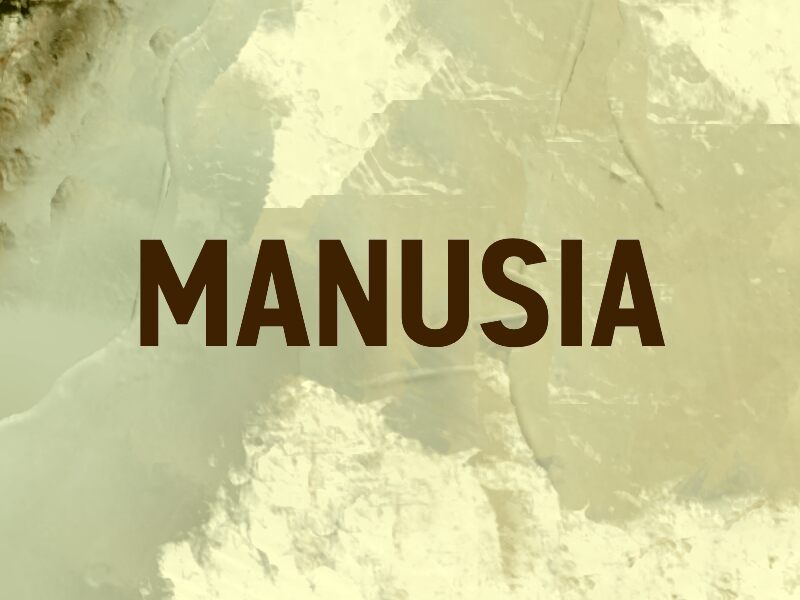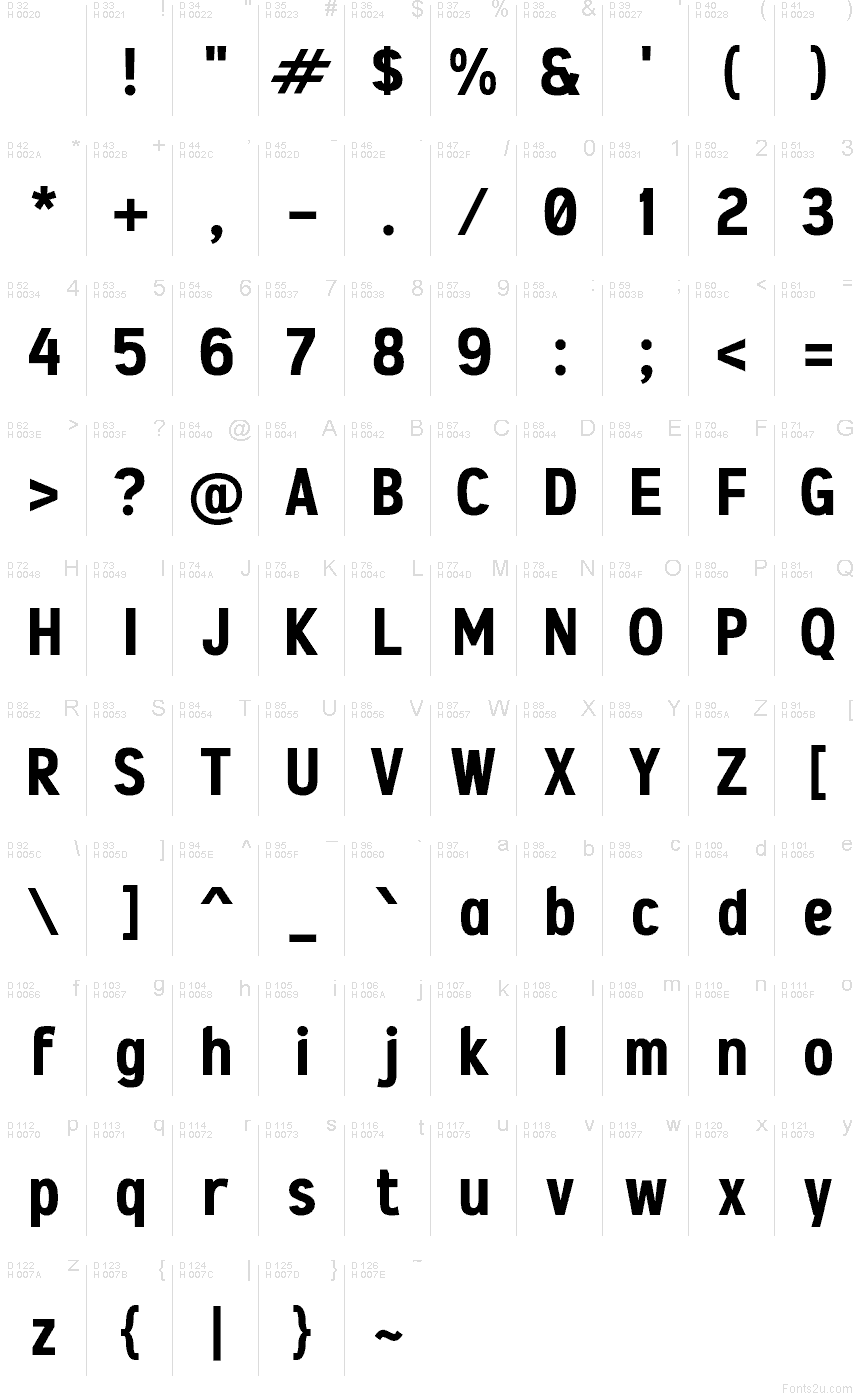
MANUSIA
Manusia font by wep is a free bold sans serif typeface that hits hard without wasting space. Its dense letterforms, flat tops, and tight, even rhythm let you shout your message in a small footprint, so headlines feel loud and confident rather than cramped. The smooth curves and straight cuts give it a sturdy, ink-soaked look that holds together on screens and in print, even at big, poster-scale sizes.
Using Manusia, you can punch up banners, social media graphics, posters, packaging, logotypes, and zine-style covers with a strong, blocky voice that stays legible. This free font thrives on short phrases and stacked text, especially when you push the size and keep copy minimal. Pair Manusia with a lighter grotesque or a clean geometric sans for body text to keep layouts balanced and easy to scan.